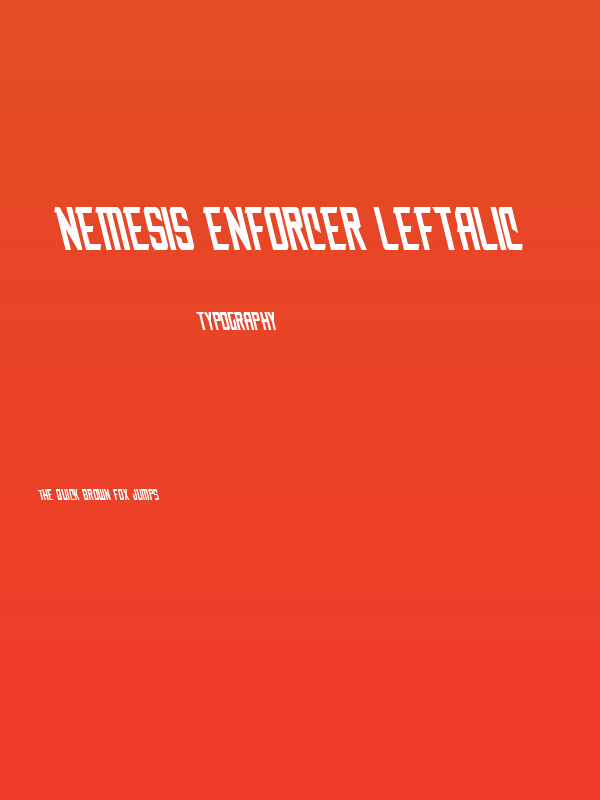
Nemesis Enforcer Leftalic Font
Nemesis Enforcer Leftalic Description
This font features a bold and dynamic style with a distinctive slant to the left, giving it a sense of movement and urgency. The characters are angular and geometric, with sharp edges and a futuristic appearance. The uppercase and lowercase letters maintain a consistent height, contributing to a uniform look. Numbers and special characters are designed with the same angular precision, ensuring a cohesive aesthetic across all glyphs. The font's unique style makes it stand out, ideal for projects that require a modern and edgy feel.
| Proposed Projects | Ideal for sci-fi themed designs, video game titles, posters, and branding that requires a modern, edgy look. |